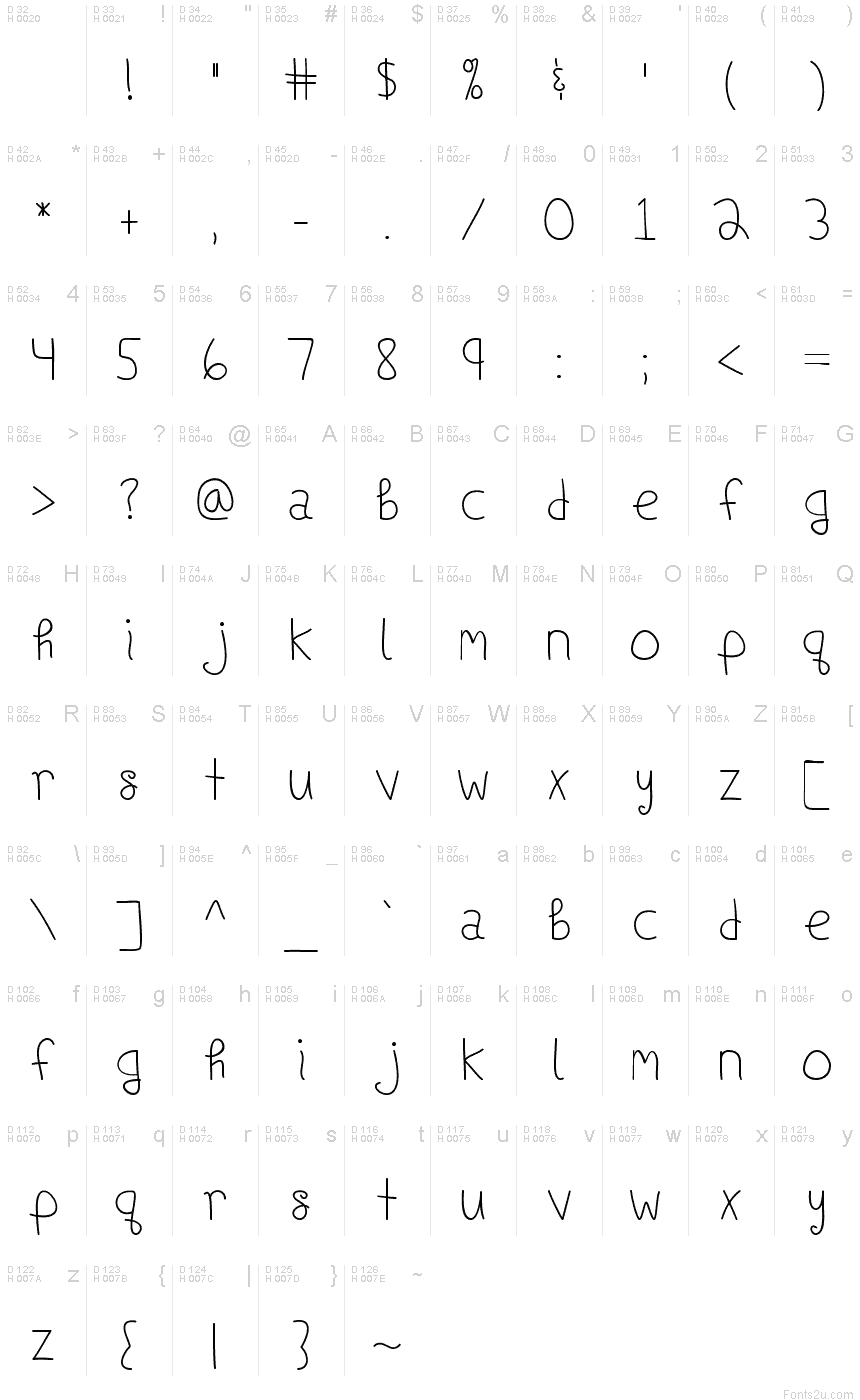
Ships in the Night by Misti Hammers of Misti's Fonts is a free handwritten font with slim, airy lettering. Its near-monoline strokes form tall loops and narrow, rounded shapes, with slight changes in height. The long ascenders are especially distinctive.
On packaging and invitations, the relaxed penmanship suits products or occasions with an intimate, homemade character. It also brings an informal note to stationery and social graphics. The single-weight lines can echo simple contour drawings, letting words become part of a delicate illustrated scene.